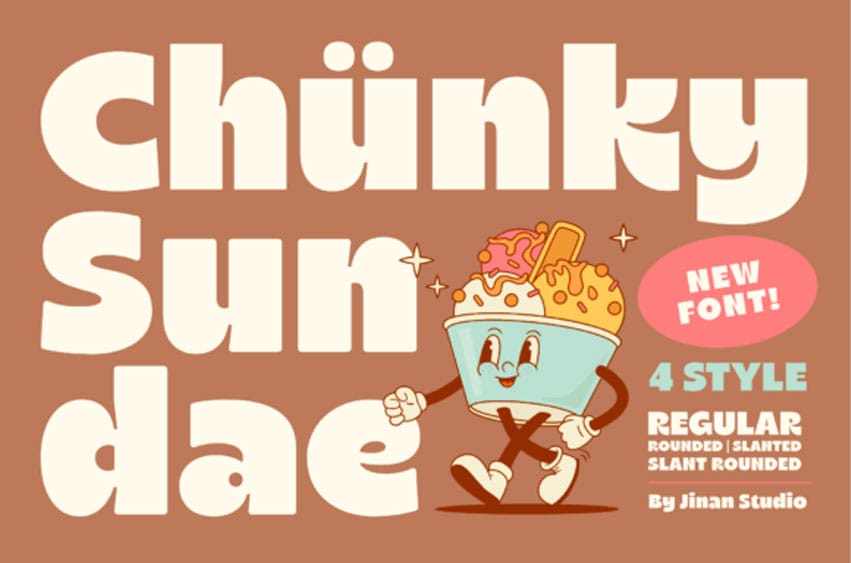
Chunky Sundae Font Immerse yourself in the playful charm of Chunky Sundae! This spirited, robust display font captures the essence of vintage animation and delectable food wraps. Its bold constructs and congenial curves are ideal for creating standout logos, noticeable posters, candy-like kids’ designs, and bubbly branding.
Within the Chunky Sundae family, you’ll find 4 distinctive styles – Regular, Rounded, Slanted, and Slant Rounded – offering versatile solutions for lively and chromatic typography. Infuse your creative endeavors with a heartwarming, retro vibe using Chunky Sundae.